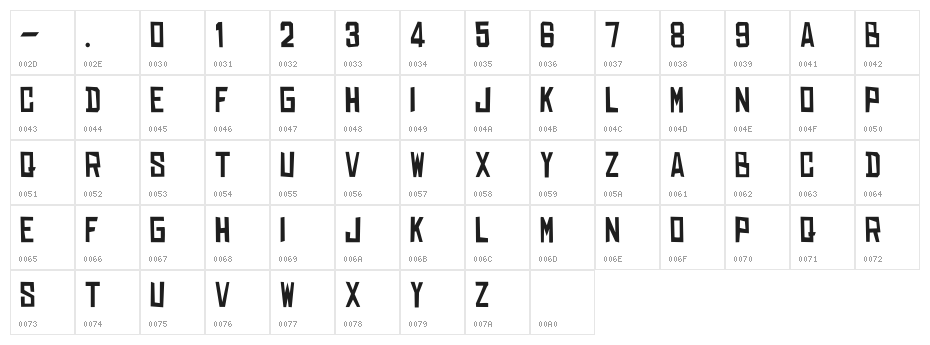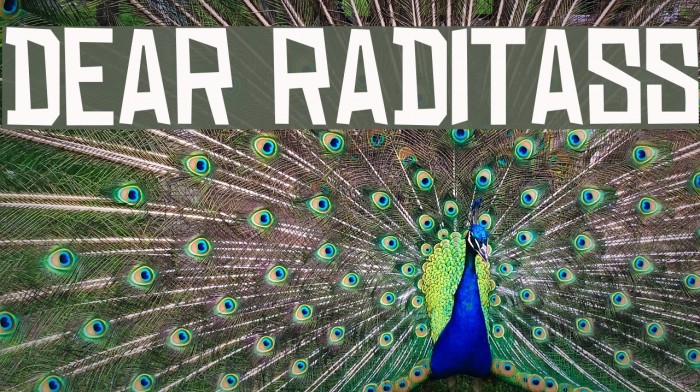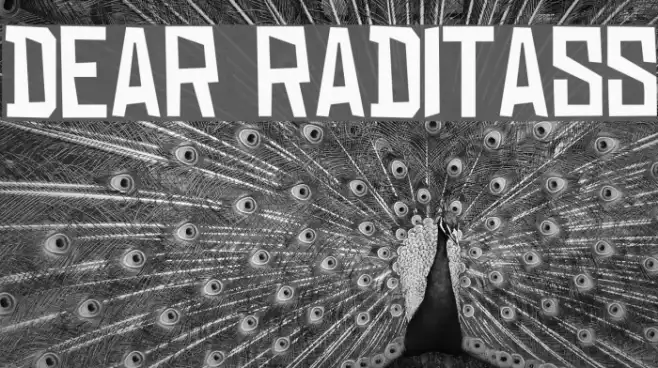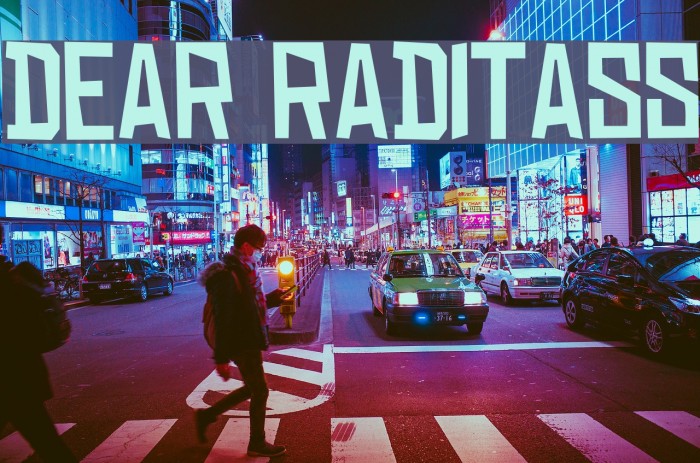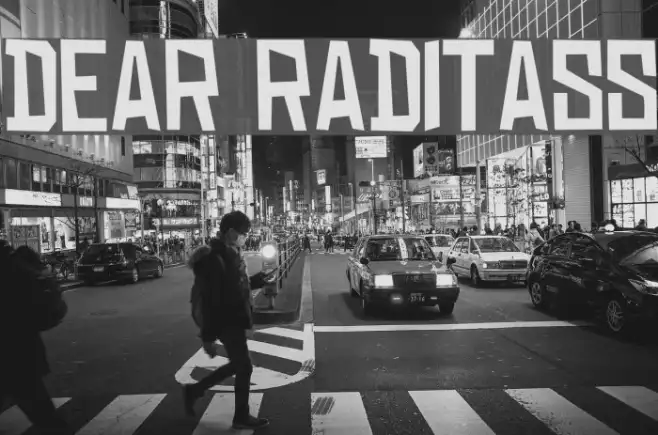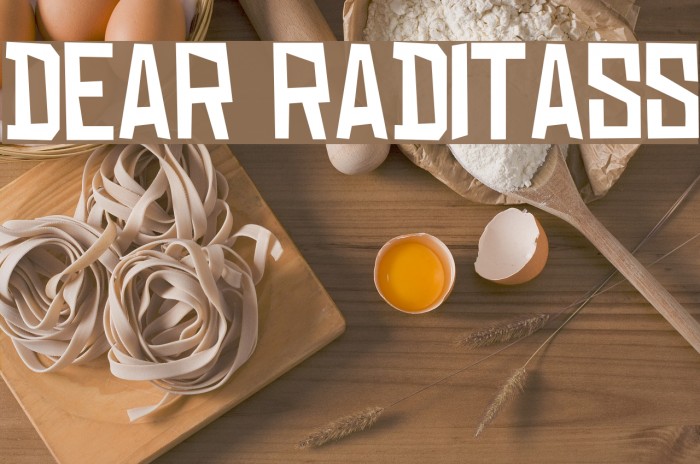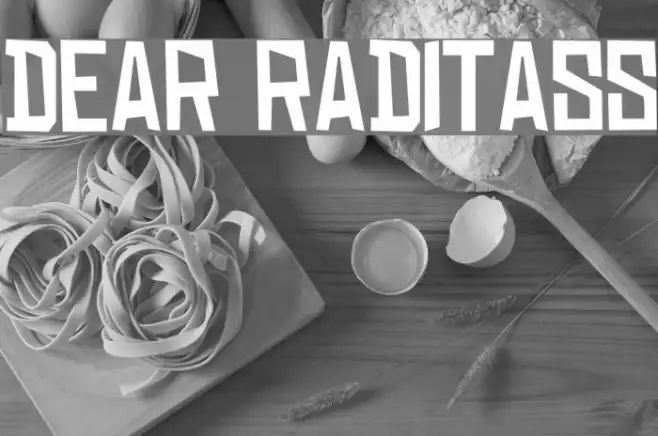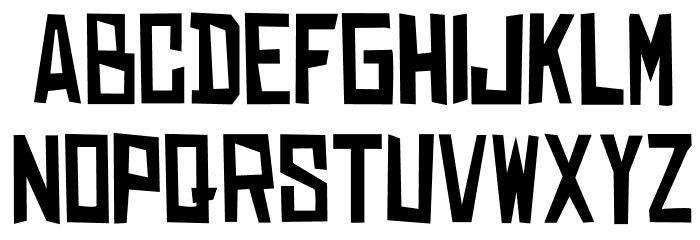
DEAR RADITASS Font
DEAR RADITASS Description
This font features a bold and angular design, characterized by its sharp edges and geometric forms. The uppercase letters are distinct with a slightly condensed appearance, giving them a strong and impactful presence. The numbers follow the same angular style, ensuring consistency throughout. This font is highly legible and commands attention, making it suitable for various design applications. The boldness of the characters is complemented by a moderate contrast in stroke thickness, adding to its dynamic and modern appeal.
| Proposed Projects | Ideal for posters, logos, branding, and headlines where a strong visual impact is desired. |